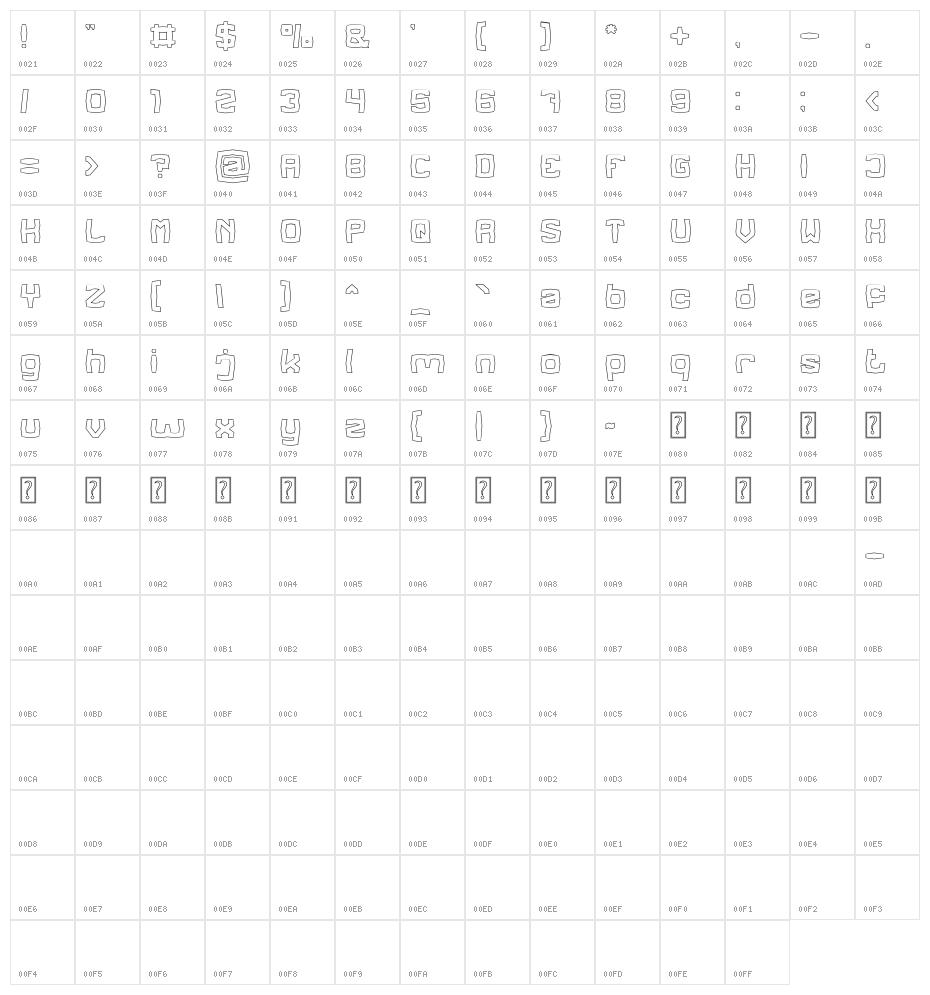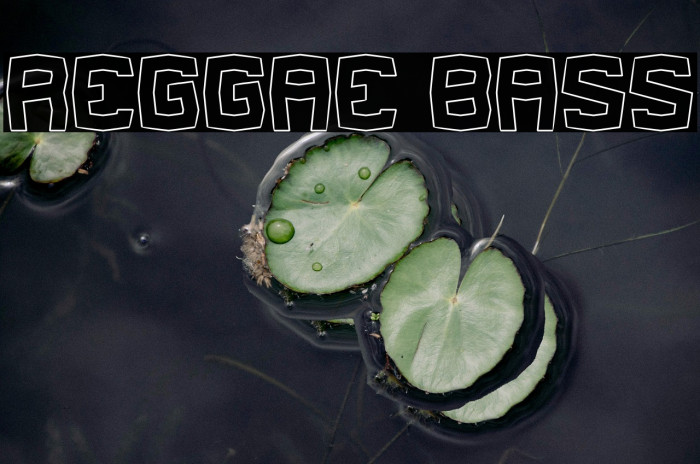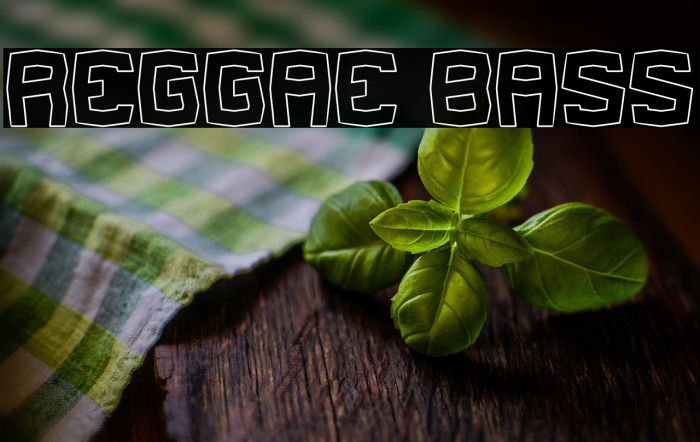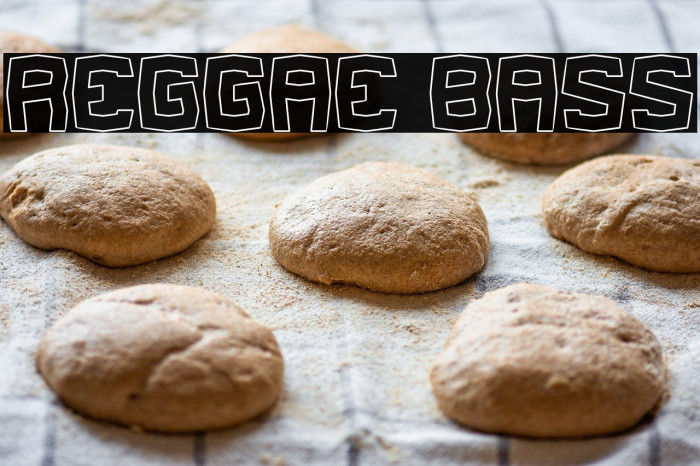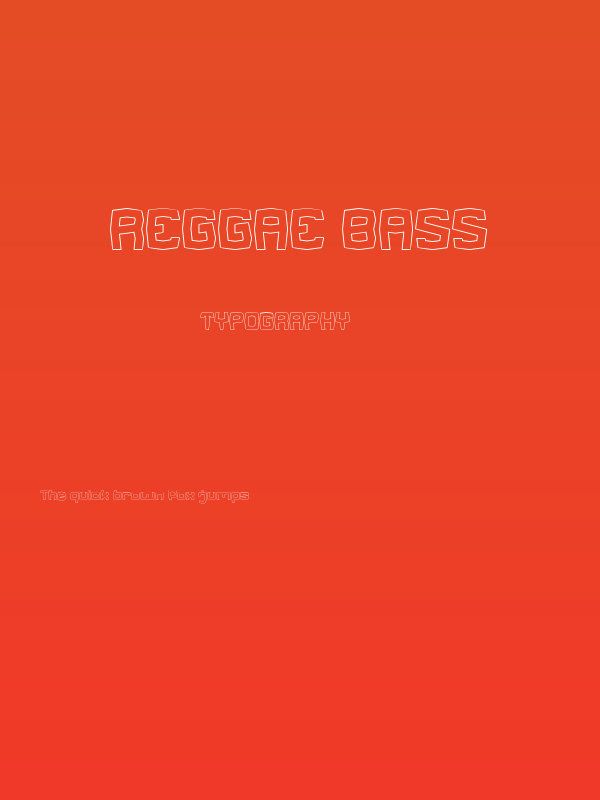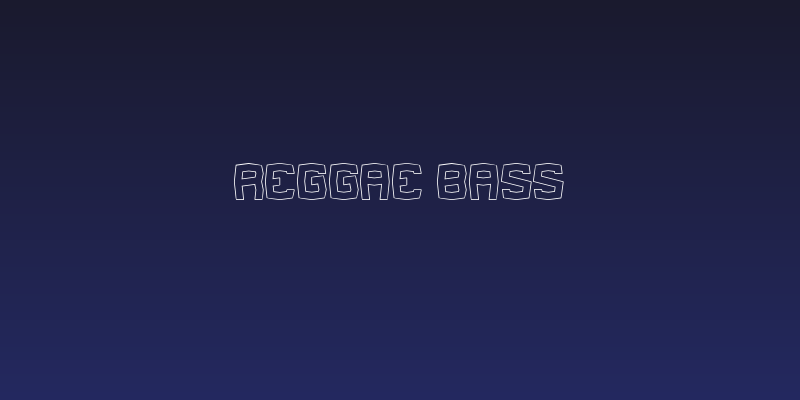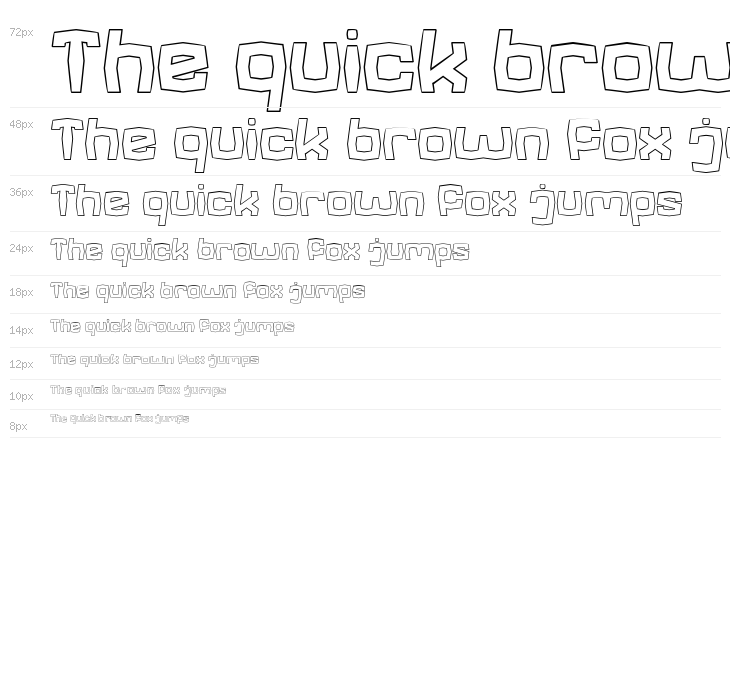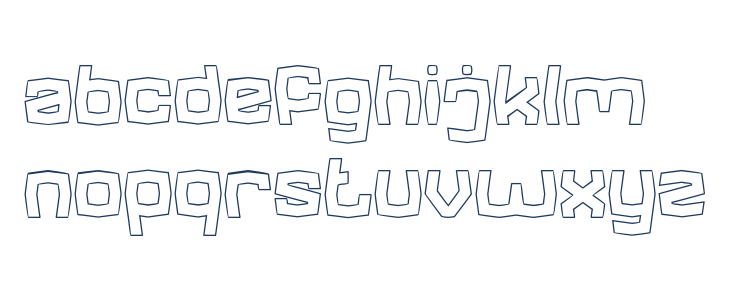
REGGAE BASS Font
REGGAE BASS Description
This font features a playful and irregular outline style, reminiscent of hand-drawn lettering. Each character appears to have been sketched with a loose, freeform approach, giving it a casual and artistic vibe. The uppercase and lowercase letters maintain a consistent height, while the numbers and special characters follow the same whimsical design. The font's unique charm lies in its uneven lines and slightly distorted shapes, which add a sense of movement and energy. It's perfect for projects that require a fun and informal touch, such as children's books, posters, or creative branding.
Overall StyleCasual, Artistic
Use CaseHeadlines, Creative projects, Informal branding
Proposed ProjectsIdeal for children's books, creative posters, casual branding, and artistic designs.